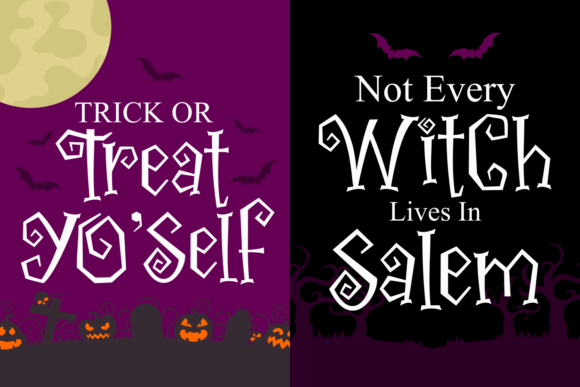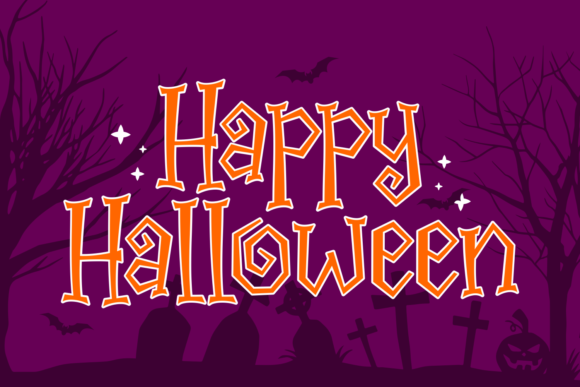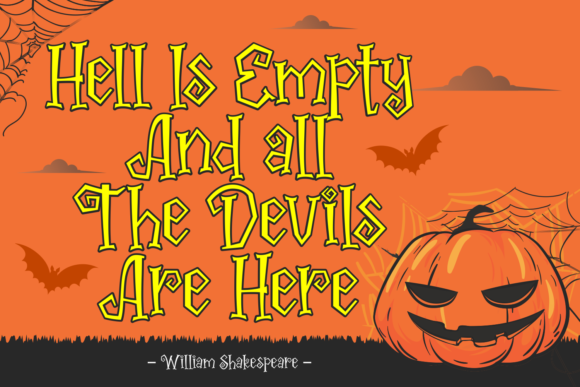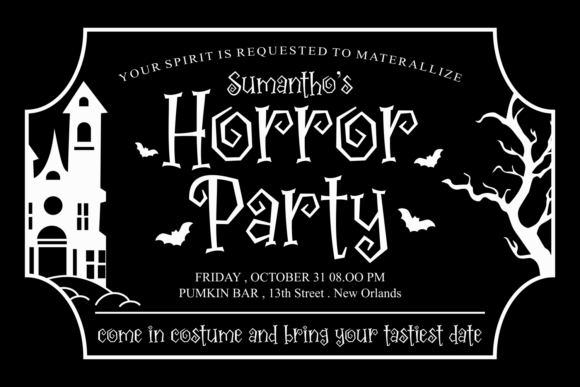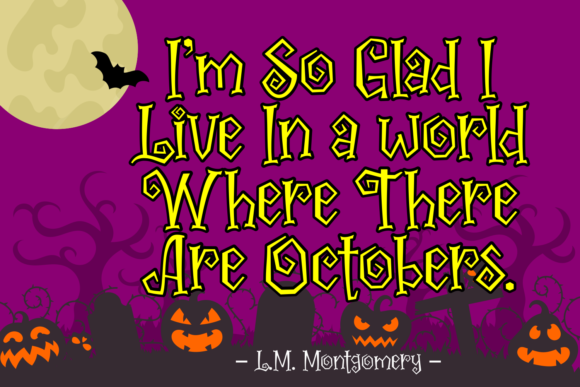
Unleash the Terror with Friday Nightmare Font: The Ultimate Halloween Display Font
Are you ready to add a dash of spookiness to your Halloween-themed designs? Look no further than the Friday Nightmare Font, a quirky and incredibly spooky display font that’s sure to make your creations stand out. In this article, we’ll dive into the world of Friday Nightmare Font, exploring its features, uses, and benefits for designers and crafters.
What is Friday Nightmare Font?
Friday Nightmare Font is a unique and eye-catching display font designed specifically for Halloween-themed designs. Its quirky and spooky style is perfect for creating eye-catching titles, headings, and graphics that will leave a lasting impression on your audience. Whether you’re a designer, crafter, or simply a Halloween enthusiast, this font is sure to add a touch of terror to your creations.
Features of Friday Nightmare Font
So, what makes Friday Nightmare Font so special? Here are some of its key features:
- Quirky and Spooky Style: Friday Nightmare Font boasts a unique and playful design that’s perfect for Halloween-themed designs.
- Display Font: This font is specifically designed for display purposes, making it ideal for titles, headings, and graphics.
- High-Quality Design: The font is designed with high-quality graphics, ensuring that it looks great even at large sizes.
Uses of Friday Nightmare Font
Friday Nightmare Font is perfect for a wide range of Halloween-themed designs, including:
- Halloween Party Invitations: Create spooky and eye-catching invitations that will set the tone for your Halloween party.
- Costume Designs: Use Friday Nightmare Font to create custom costume designs, such as t-shirts, hats, and signs.
- Social Media Graphics: Add a touch of terror to your social media graphics, such as Facebook posts, Instagram stories, and Twitter headers.
- Halloween Decorations: Use Friday Nightmare Font to create custom Halloween decorations, such as signs, banners, and garlands.
Benefits of Using Friday Nightmare Font
So, why should you use Friday Nightmare Font in your designs? Here are some benefits:
- Stand Out from the Crowd: Friday Nightmare Font is a unique and eye-catching font that’s sure to make your designs stand out from the crowd.
- Perfect for Halloween: Friday Nightmare Font is specifically designed for Halloween-themed designs, making it the perfect choice for your spooky creations.